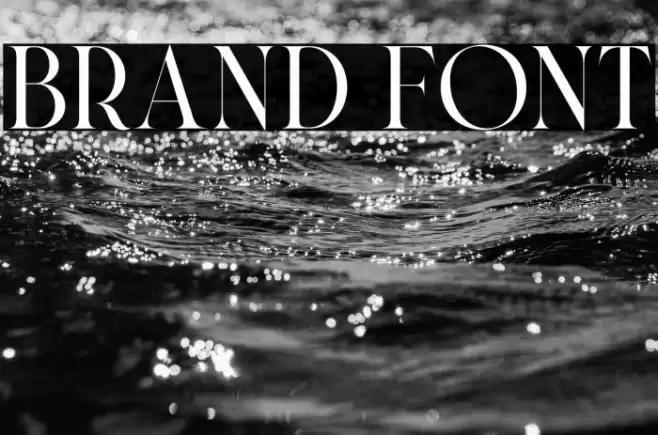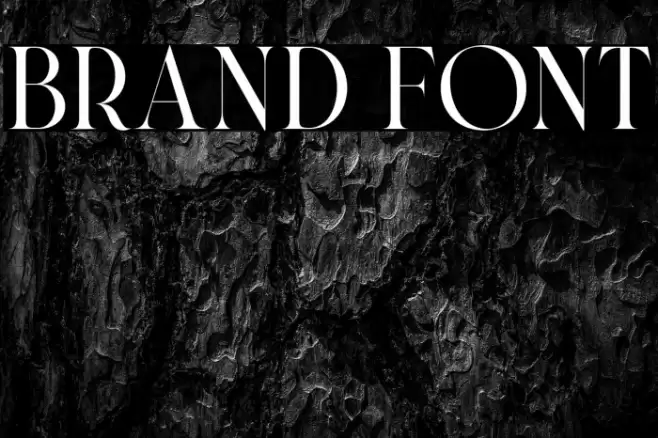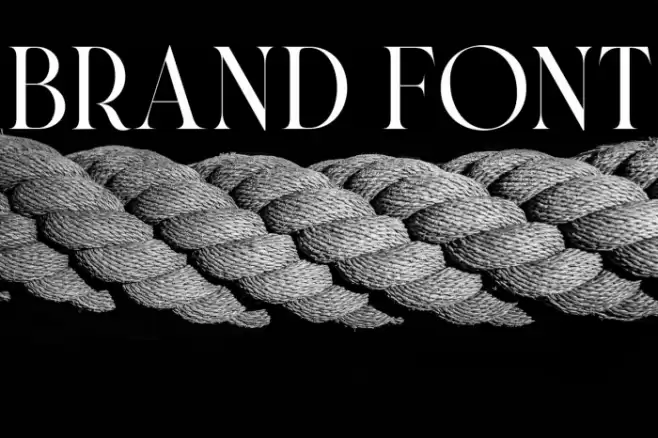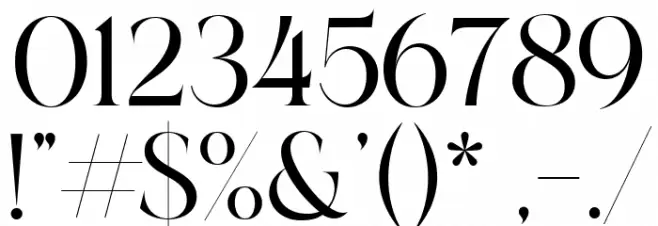
Brand Font
This font features a sophisticated and elegant design with high contrast between thick and thin strokes, giving it a refined and luxurious appearance. The uppercase letters are adorned with subtle flourishes, particularly noticeable in characters like 'Q' and 'R', adding a touch of flair. The numerals are stylishly curved, maintaining the overall elegance of the typeface. Special characters are designed with the same attention to detail, ensuring consistency throughout. This font is ideal for projects that require a touch of class and sophistication.
An elegant, high-contrast serif font with refined flourishes from Thick fonts.
- Proposed Projects: Ideal for luxury branding, wedding invitations, high-end product packaging, and editorial design.
- Contrast: High
- Overall Style: Classic